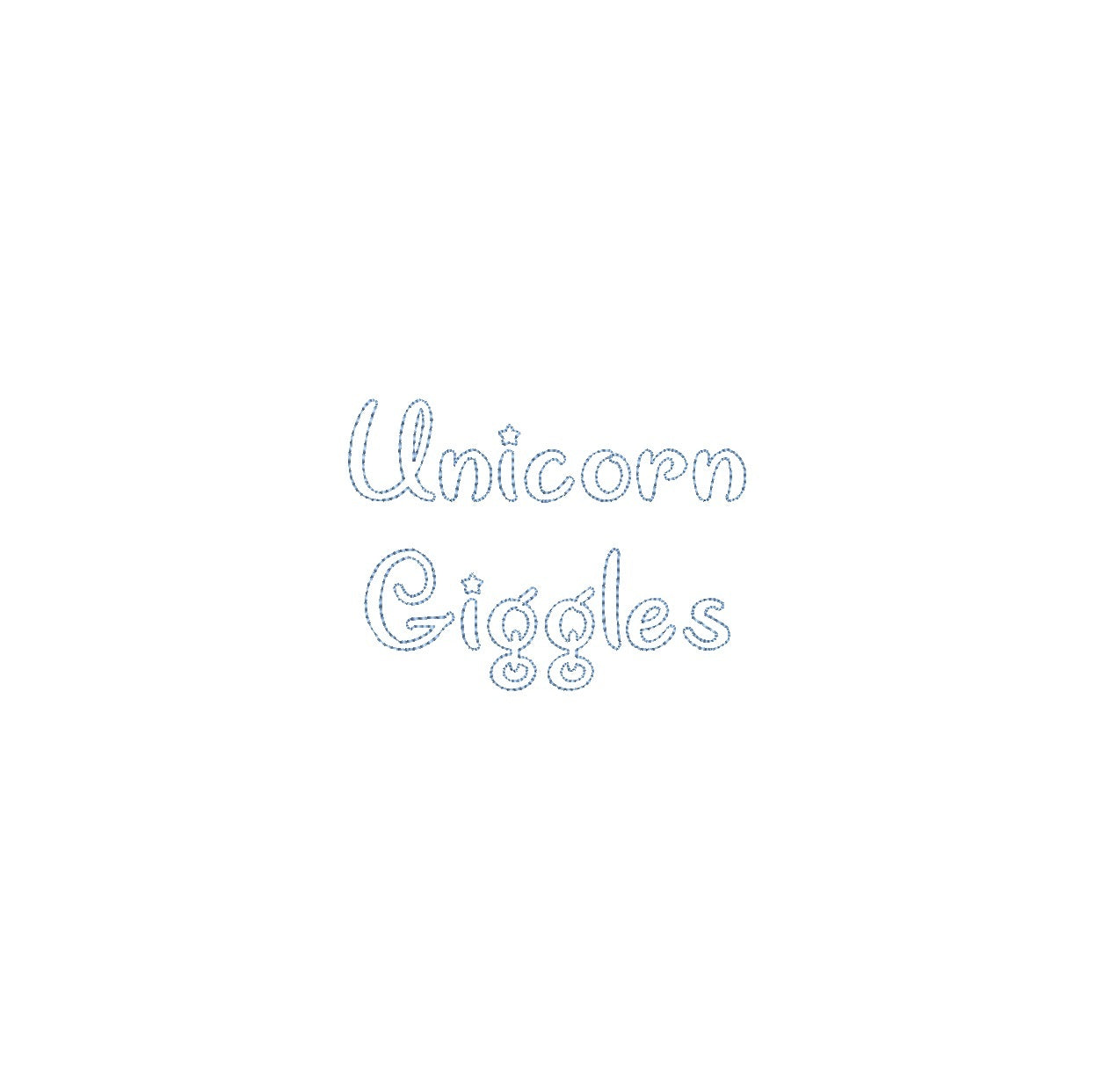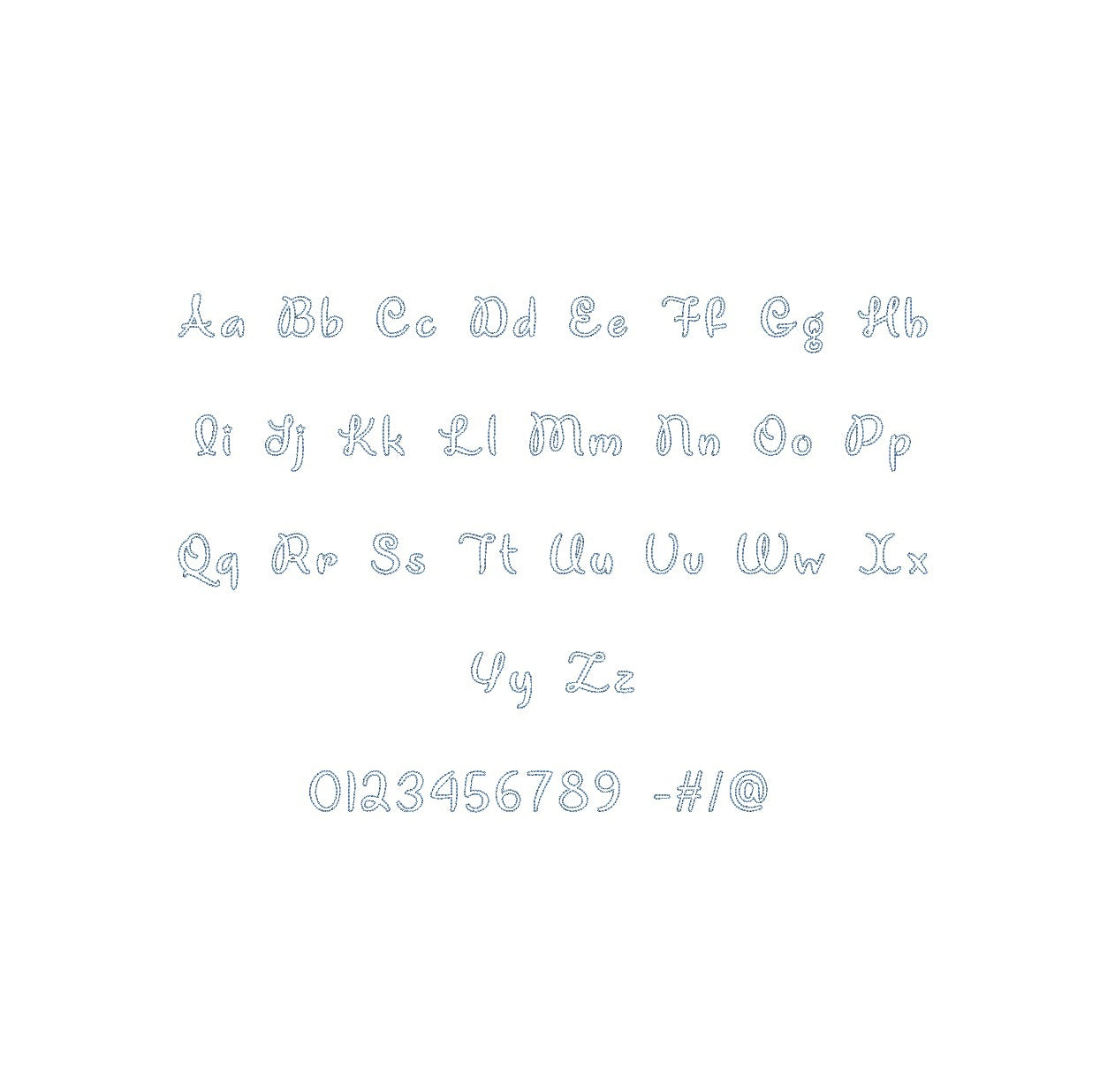
Elevate your embroidery with the Unicorn Giggles Bean Stitch Outline ESA font, compatible with Wilcom Studio e4.5.6 and Hatch 3 versions and up. This font captures the enchantment of unicorns with a playful yet precise aesthetic, perfect for whimsical monograms and embellishments. Experience seamless compatibility for outstanding results and unleash a new level of stitching finesse. Transform your creations into embroidery masterpieces that radiate the magic of unicorns. Elevate your projects with the Unicorn Giggles Bean Stitch Outline ESA font and make your embroidery truly charming and unforgettable.